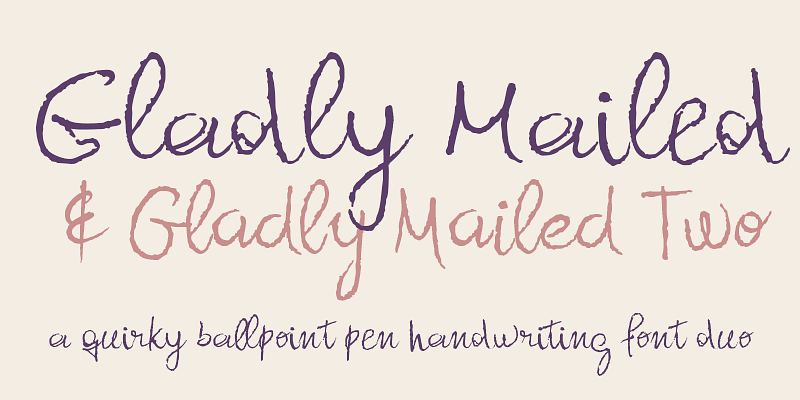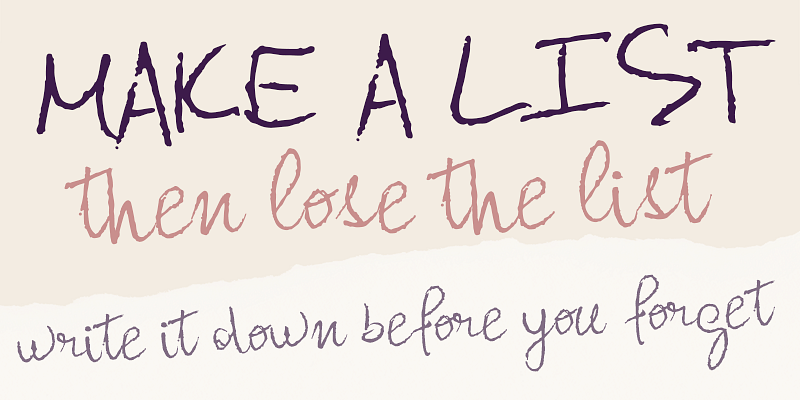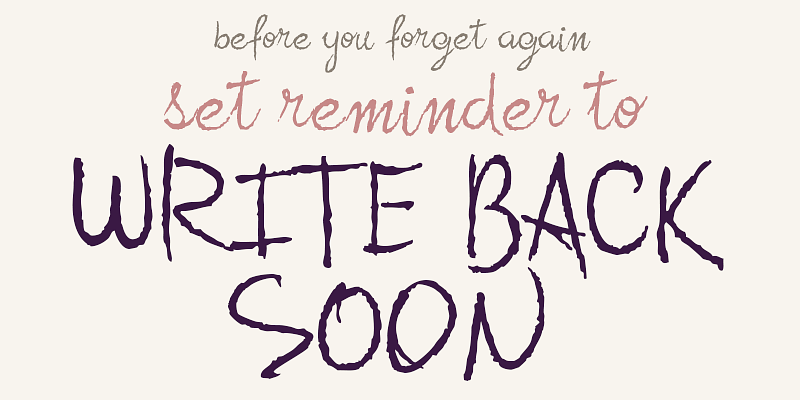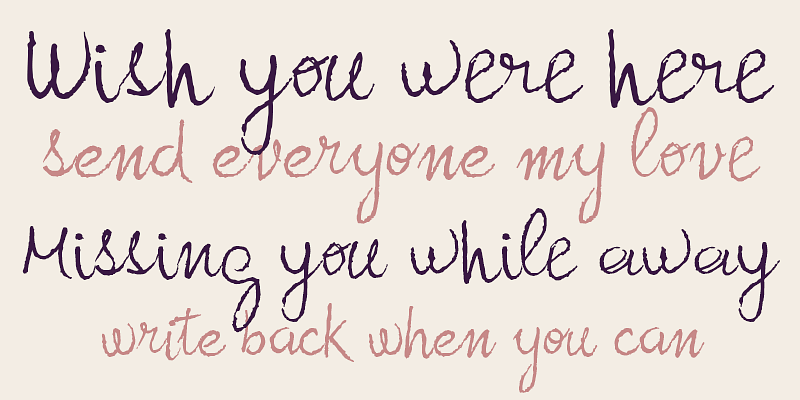
Gladly Mailed is a quirky ballpoint handwriting family inspired by skippy notes, margin scribbles, reminder lists, and the imperfect charm of everyday writing.
Its uneven rhythm, shifting pressure, and informal baseline give it the feeling of something quickly written by hand rather than carefully manufactured. The result is warm, approachable, and a little unruly — useful when a design needs to feel personal, casual, sincere, or spontaneous.
Gladly Mailed works well for notes, journals, social graphics, greeting cards, classroom materials, packaging, labels, planner pages, and lifestyle branding that calls for a human touch. It is especially useful in designs where polish is not the point, and personality matters more than perfection.
The family includes Gladly Mailed and Gladly Mailed Two. The companion style swaps the primary and alternate glyph sets, giving designers an easy way to change the handwriting rhythm without manually choosing alternate characters.
Gladly Mailed brings the texture of real pen movement to digital design: loose, personal, and gladly imperfect.